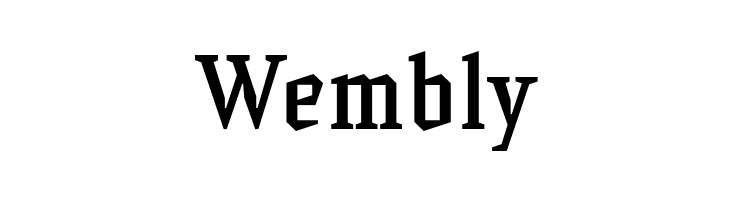
Mosaic Serif Regular Font
- Font: Mosaic Serif Regular
A bold, italic, and condensed font with a modern and dynamic style.
( Fonts by Dieter Schumacher )